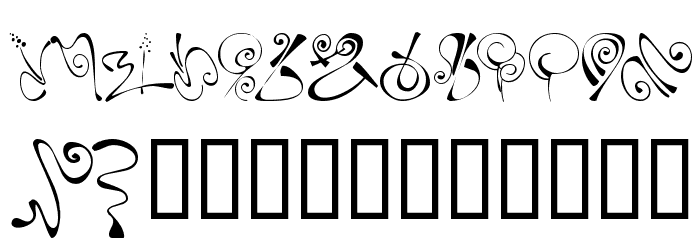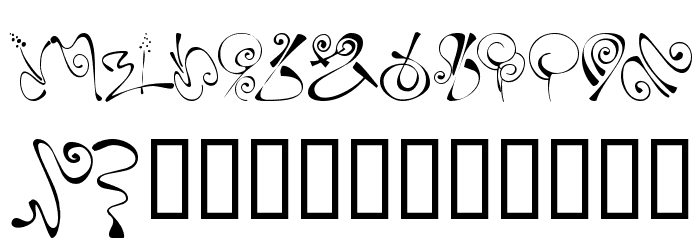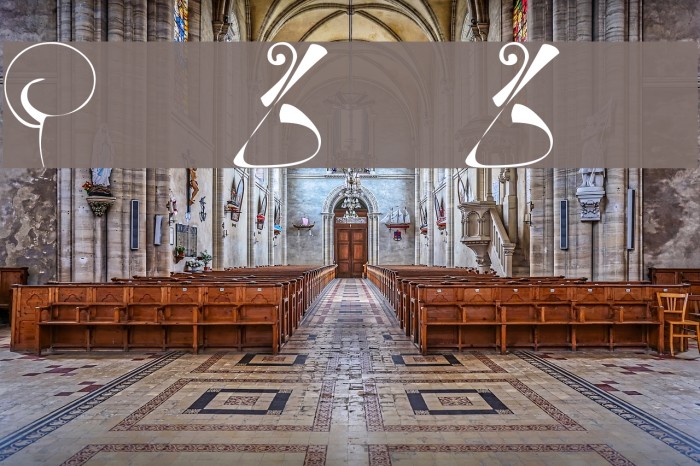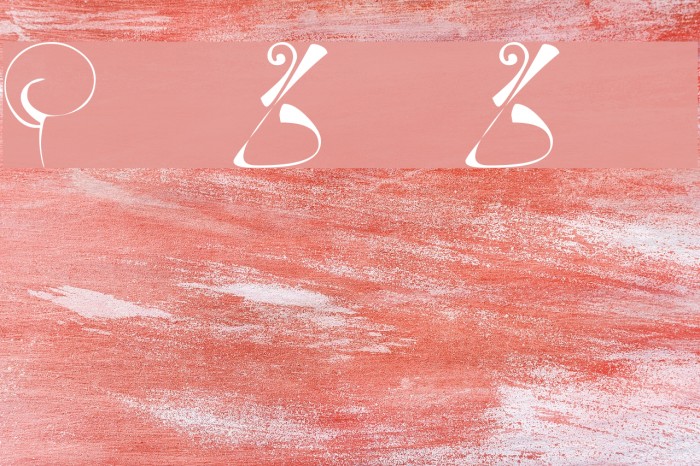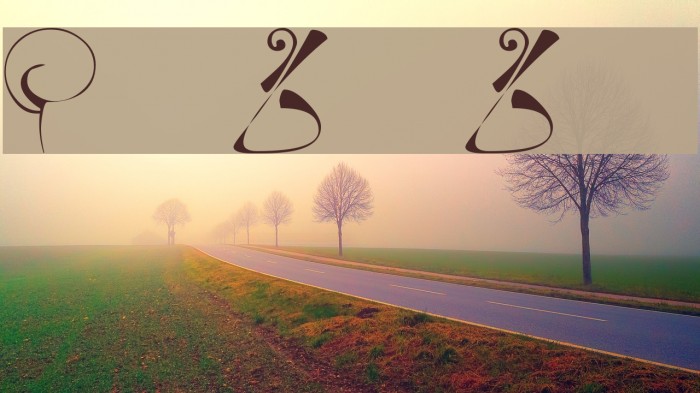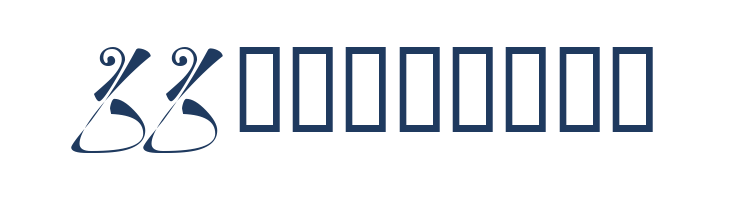
KR Fleur Flair 6 Font
This font is an artistic and decorative typeface characterized by its intricate and whimsical design. Each character is adorned with elaborate flourishes and swirls, creating a sense of elegance and fantasy. The letters are highly stylized, with unique embellishments that give them a distinct and ornate appearance. The font's playful curves and loops make it ideal for creative and decorative projects where a touch of flair is desired. Its intricate details and artistic flair make it stand out, capturing attention with its unique style.
An ornate and whimsical decorative font with intricate flourishes.
- Proposed Projects: Ideal for invitations, greeting cards, artistic posters, and branding that requires a touch of elegance and creativity.
- Use Case: Logos, Artistic projects, Invitations